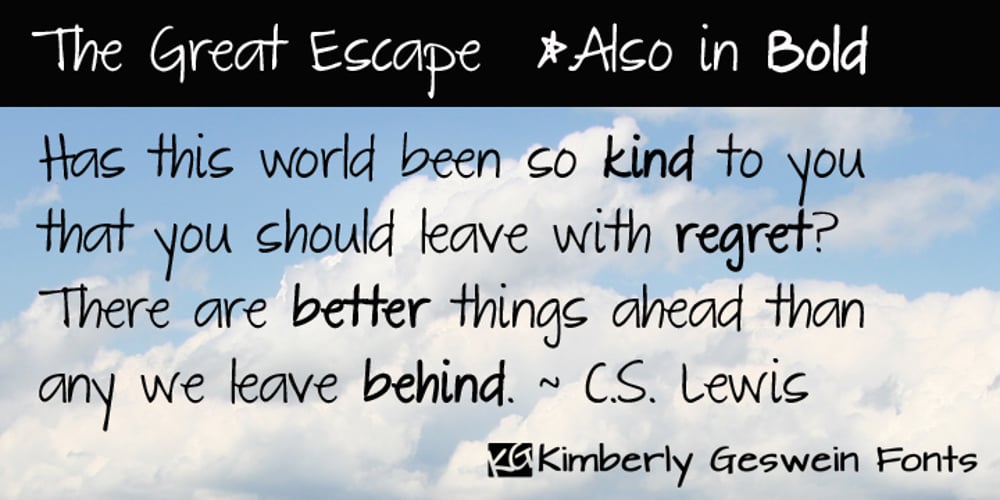
The Great Escape
The Great Escape font
The Great Escape Font Family was designed by Kimberly Geswein and published by Kimberly Geswein. The Great Escape contains 2 styles and family package options. This cute, neat handwriting font is perfect for a variety of uses. The font features genuine handwritten flair while still maintaining complete readability.